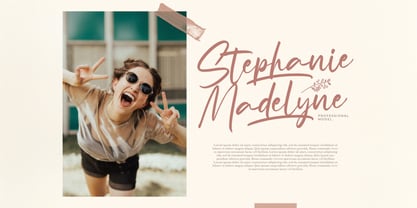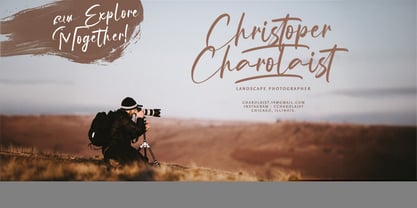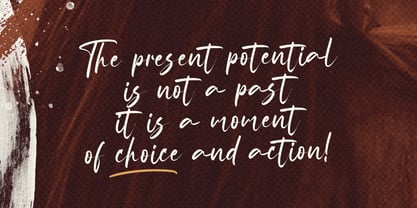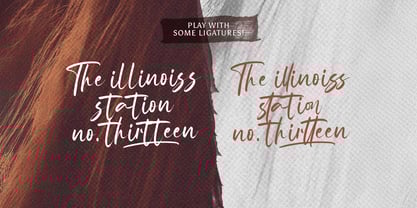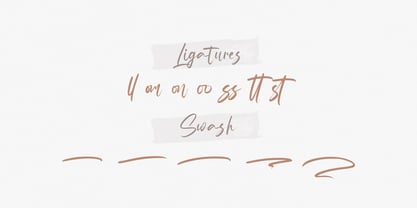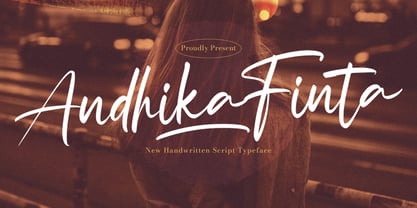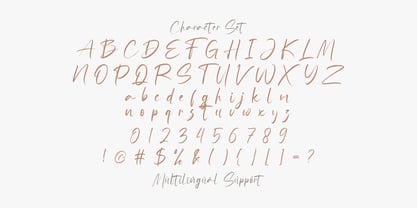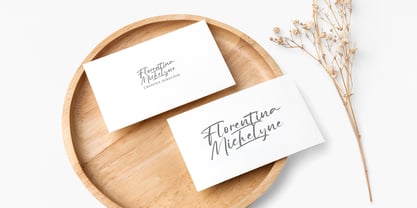
Andhika Finta
by Stringlabs Creative Studio
The Andhika Finta Font Family was designed by Virgiawan Listanto and published by Stringlabs Creative Studio. Andhika Finta contains 1 styles.
Andhika Finta is a stylish handwritten font that combines modern flow with a personal, handcrafted feel. Its elegant curves and smooth, natural strokes make it ideal for designs that aim to feel warm, expressive, and authentically human.